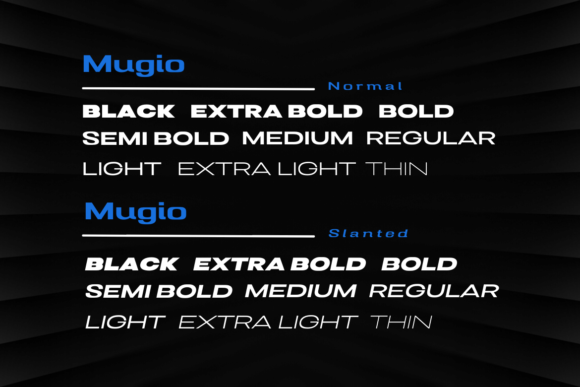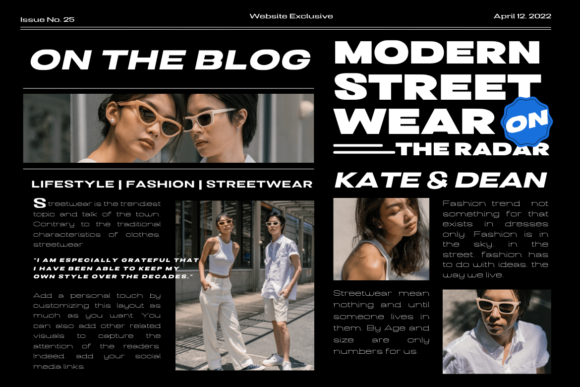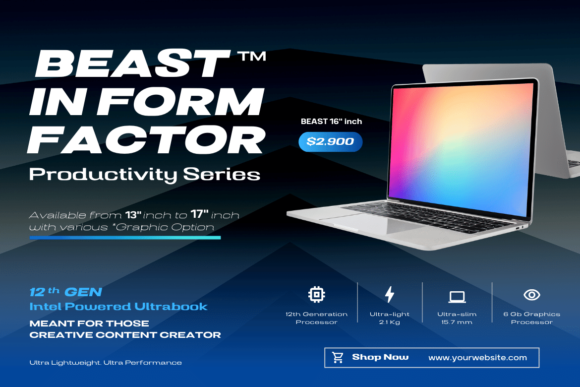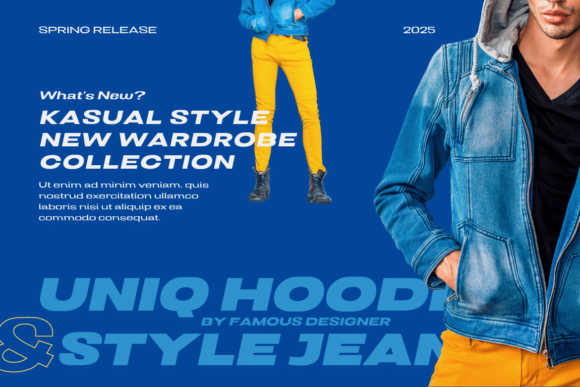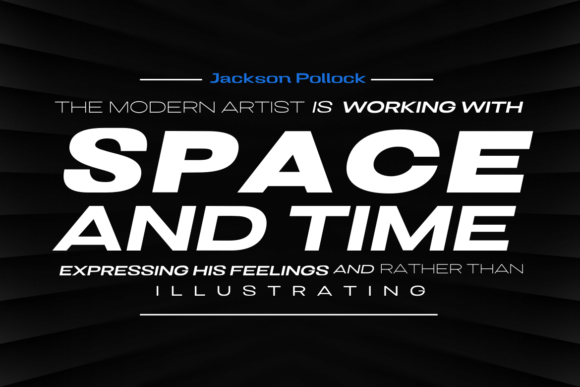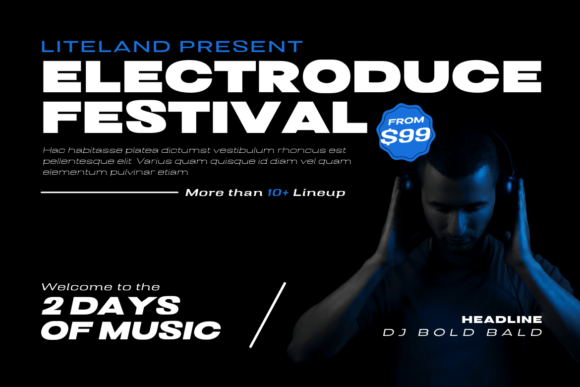
Introduction to Mugio Font
Do you remember that moment when you stumbled upon a design that perfectly captured your vision? For many of us, it’s the spark that ignites a creative project, driving us to push the boundaries of our imagination. As designers, we’re constantly on the lookout for the perfect fonts to bring our ideas to life.
Enter Mugio Font, an elegant and modern sans serif font that’s sure to become your new go-to design resource. With its minimalist and clean vibe, Mugio Font is perfect for a wide range of creative projects, from book covers and magazines to social media posts and invitations. Whether you’re working on a high-quality design for a client or simply want to add a touch of sophistication to your personal projects, Mugio Font is an excellent choice.
Mugio Font
- Unique, modern font style with a transparent background, perfect for overlaying on images or videos.
- Includes a wide range of characters, including uppercase and lowercase letters, numbers, and special symbols.
- Perfect for designers and artists looking for a modern, high-quality font to elevate their creative project.
Honest Review: Mugio Font
As a designer, I’m always on the lookout for high-quality fonts to elevate my creative projects. The Mugio Font caught my eye with its sleek and modern design.
What works well: ✨ I love how versatile the Mugio Font is – it’s perfect for everything from logos to web headers. The transparent background option makes it easy to customize and integrate into any design. Plus, it’s available for free download, which is a major bonus. The font’s clean lines and minimalist aesthetic make it a great choice for modern design projects.
Here are some of my favorite features:
- High-quality design that’s perfect for logos, headers, and body text
- Transparent background option for easy customization
- Great for modern and minimalist design projects
Limitations: ⚠️ While the Mugio Font is a great choice for many projects, it may not be suitable for projects that require a more ornate or decorative font. Additionally, some users may find the font’s minimalist aesthetic too plain for certain designs.
Overall impression: The Mugio Font is a solid choice for designers looking for a high-quality, versatile font. Its transparent background and free download make it a convenient option for many projects. While it may not be suitable for every design, it’s a great addition to any designer’s toolkit.
Mugio Font
The Mugio Font is a versatile and high-quality design resource perfect for creative projects. It’s available for free download and can be used in various applications, including graphic design software and presentation tools.
Tips for Getting the Most Out of Mugio Font
For optimal results, use the Mugio Font with a transparent background to create a seamless design. You can also experiment with different font sizes and styles to achieve the desired look.
The Mugio Font is perfect for a variety of creative projects, including logos, brochures, and social media graphics. Its high-quality design and transparent background make it an ideal choice for designers looking for a versatile and easy-to-use font resource.
Alternatives to Mugio Font
Great Vibes Font is a high-quality, handwritten font perfect for creative projects that require a personal touch. It features a transparent background, making it ideal for designs that need a subtle, elegant feel. When to use: Wedding invitations, quotes, and other design elements that require a unique, handwritten style. How it compares to Mugio Font: While Mugio Font has a more modern, geometric feel, Great Vibes Font offers a more traditional, handwritten look that’s perfect for projects that need a personal touch.